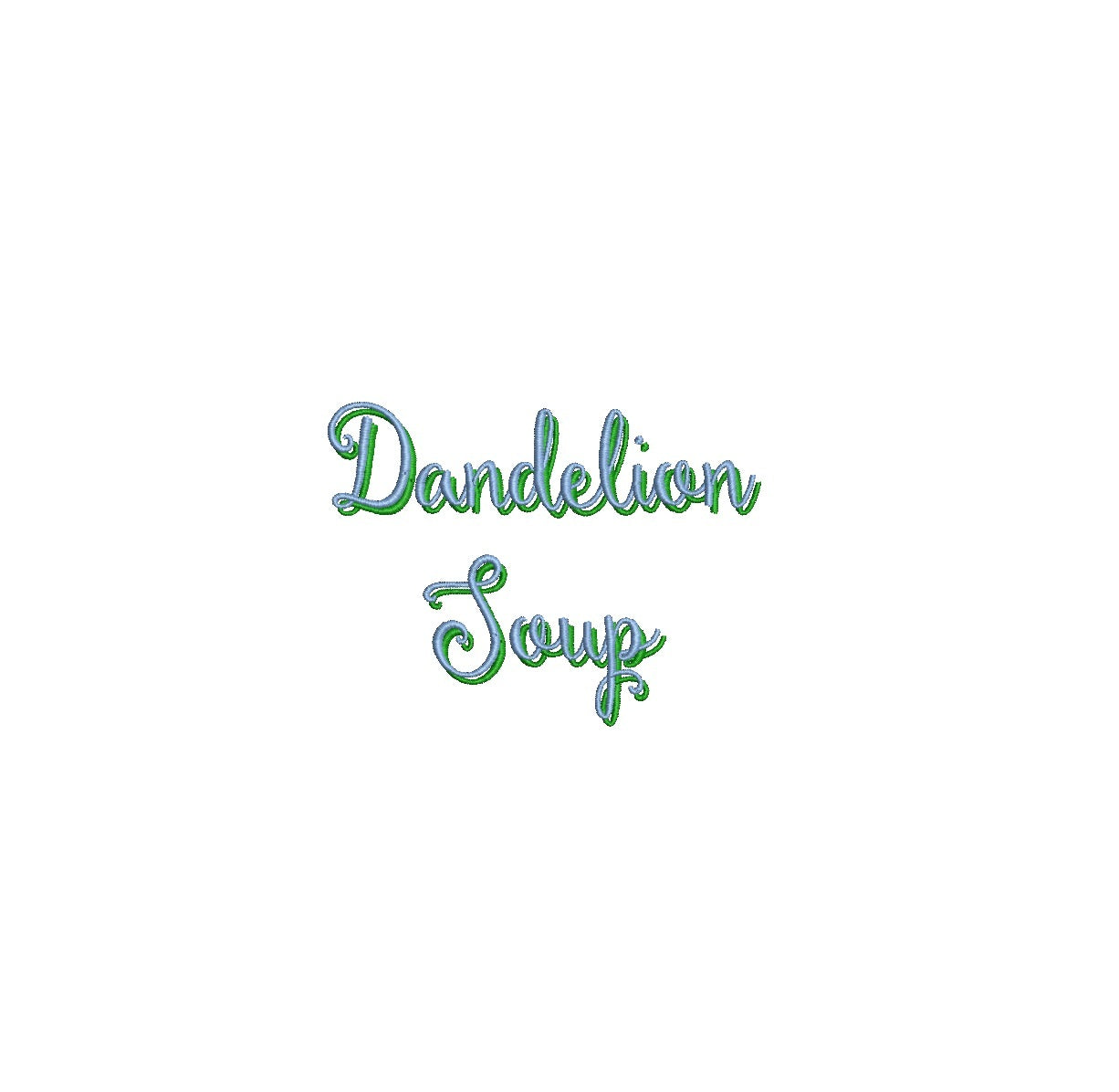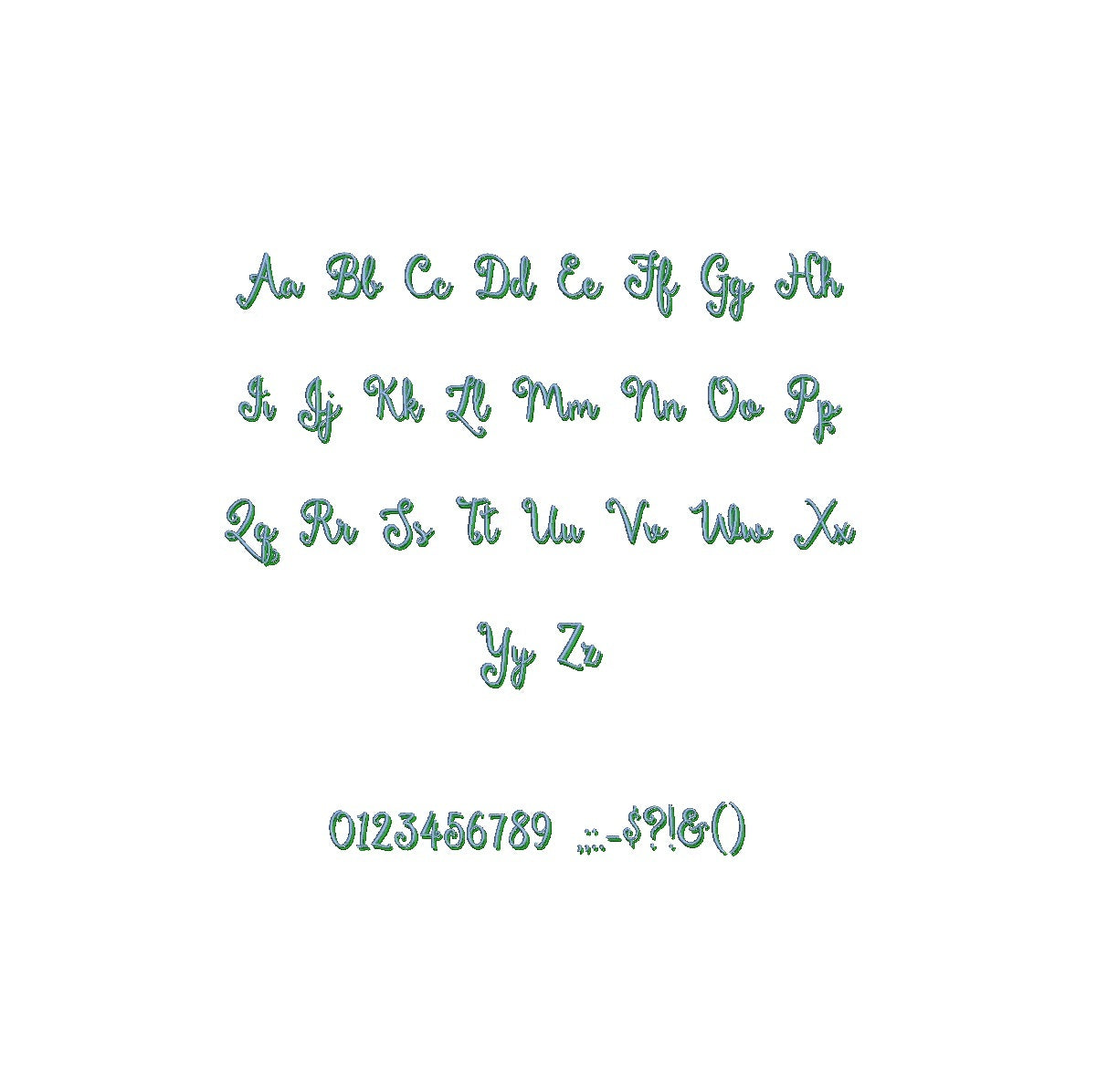
Dandelion Soup Shadow ESA font
Elevate your designs with the whimsical Dandelion Soup Shadow ESA font. Fully compatible with Wilcom Studio e4.5.6 and Hatch 3 versions and up, this font brings a playful touch and creative flair to your projects. The intricate shadows and fluid lines of this font create a captivating visual impact that sets your designs apart. Streamline your creative process and achieve flawless results by utilizing this font with industry-leading software. Upgrade your projects with the compatibility of Dandelion Soup Shadow ESA font and craft visuals that evoke a sense of imagination. Embrace creativity and originality for your design journey today!